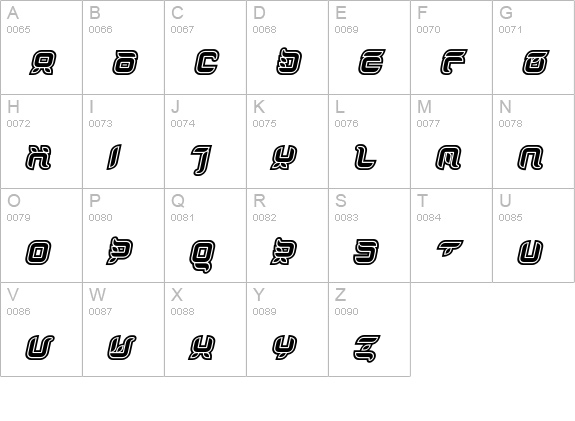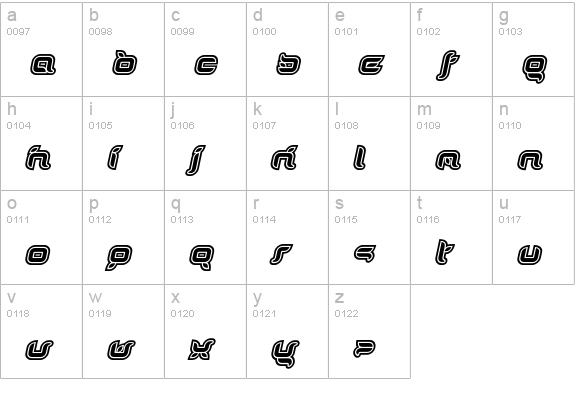
DorisOrange-OutlineItalic is a modern and stylish font that combines elegance with a touch of playfulness. Its delicate italic outline gives it a unique and eye-catching appearance, making it perfect for a wide range of design projects. Whether you're creating invitations, posters, or branding materials, this font will add a sophisticated touch to your work. Best of all, DorisOrange-OutlineItalic is available for free download at FontsMarket.com. This means you can easily access this beautiful font and use it in your projects without any cost. Don't miss out on the opportunity to enhance your designs with this stunning typeface. Download DorisOrange-OutlineItalic today and elevate your creative projects to the next level.